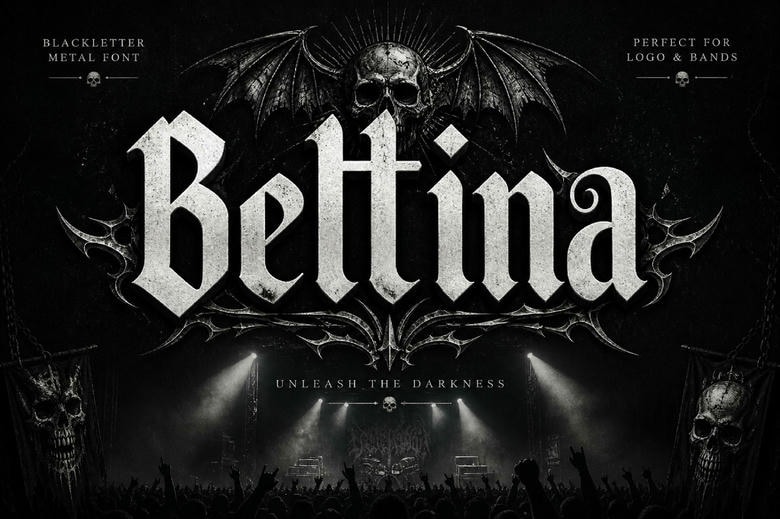
Beltina Font
Beltina is a bold gothic blackletter display font that combines traditional elegance with a vintage feel. Inspired by classic gothic styles, Beltina features sharp edges, strong vertical lines, and timeless letter shapes.
Beltina is classic gothic style is perfect for creatives looking to add a medieval, vintage, or refined touch to their projects. It works well for branding, logos, posters, packaging, album covers.
Beltina Blackletter Font